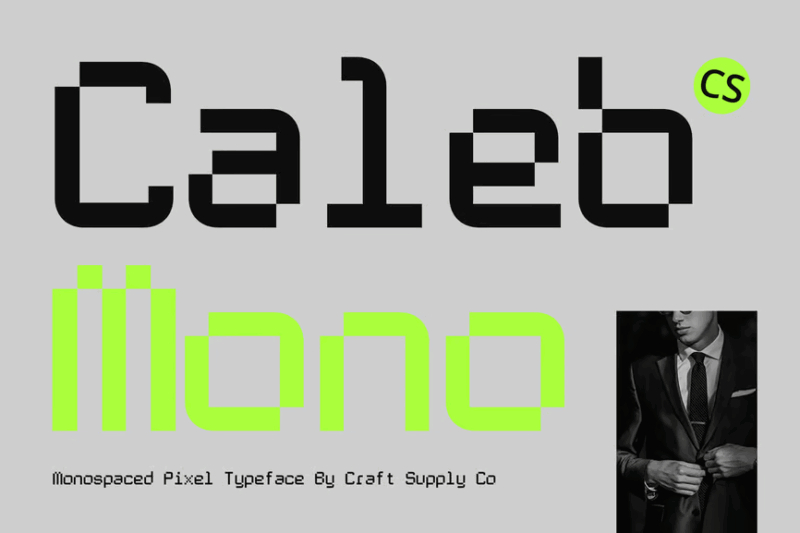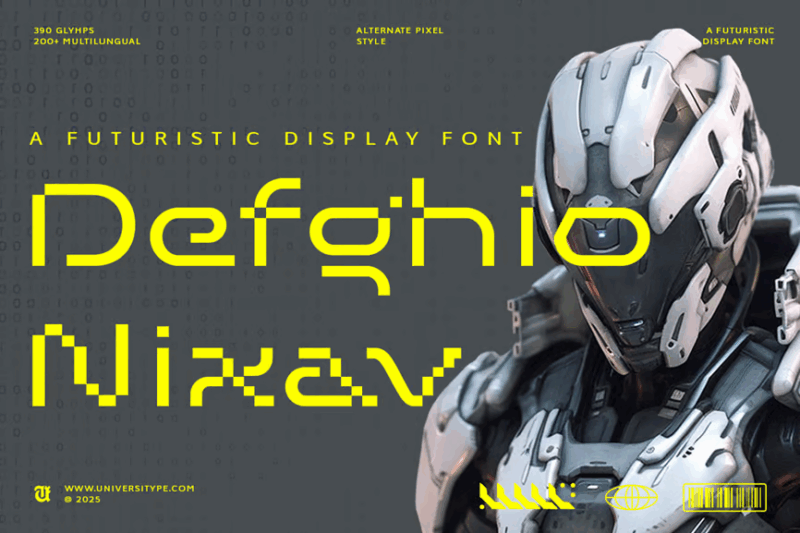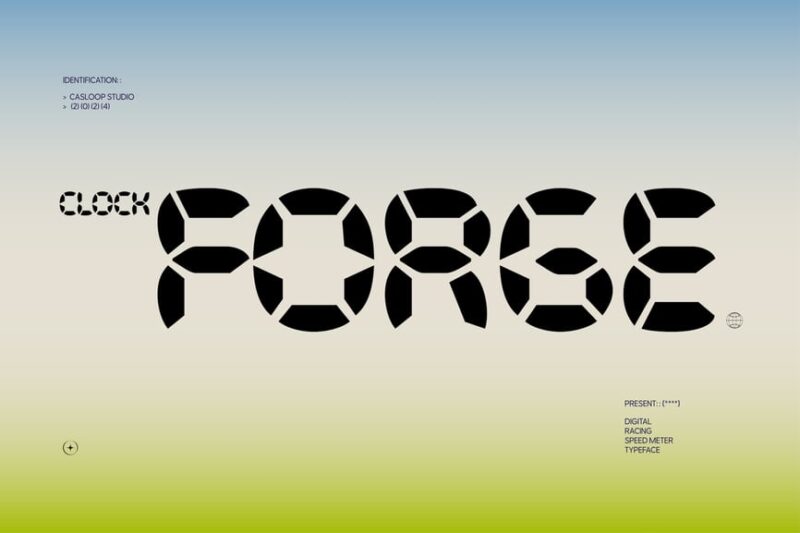
Digital fonts transport us back to the early days of digital technology while paradoxically still feeling cutting-edge in the right context. Their distinctive, technical appearance has made them enduringly popular for tech companies, sci-fi projects, retro-futuristic designs, and any brand wanting to communicate innovation and technological prowess.
Whether you’re designing for a tech startup, creating a nostalgic 80s arcade vibe, or simply want to add some electronic flair to your next project, these digital fonts will have your designs looking tech-ready in no time. Let’s dive in!
21 Best Digital Fonts in 2026
I’ve curated this collection of the absolute best digital fonts available right now. From classic 7-segment displays to more elaborate 16-segment options, these fonts capture that distinctive electronic vibe that designers are loving in 2026.
Clock Forge
Clock Forge is a dynamic digital font inspired by racing speed meters and pixel aesthetics. It combines a Y2K-inspired look with watch-like elements, making it perfect for designs that need a retro-futuristic edge.
Upper Clock
Upper Clock is a monospace pixel font that embodies the Y2K digital aesthetic. Its design is reminiscent of time and temperature displays, making it ideal for projects that require a nostalgic yet futuristic feel.
Digitalize
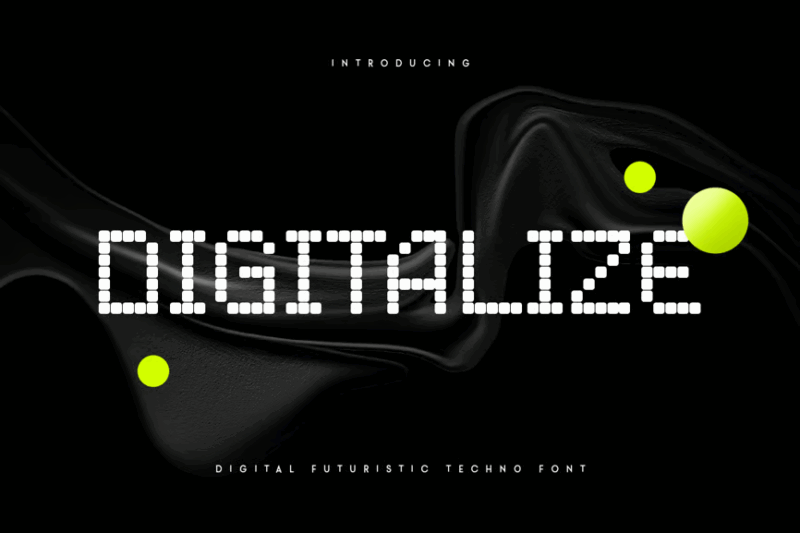
Digitalize is a pixel font that exudes a futuristic and techno vibe. Its modern, pixelated design makes it perfect for tech-related projects or any design that aims to convey a cutting-edge, digital feel.
Bugvirus
Bugvirus is a sans-serif pixel font designed to mimic the look of classic video game and software interfaces. Its digital, retro aesthetic makes it ideal for gaming-related designs or projects aiming for a nostalgic tech feel.
Digital Moneter
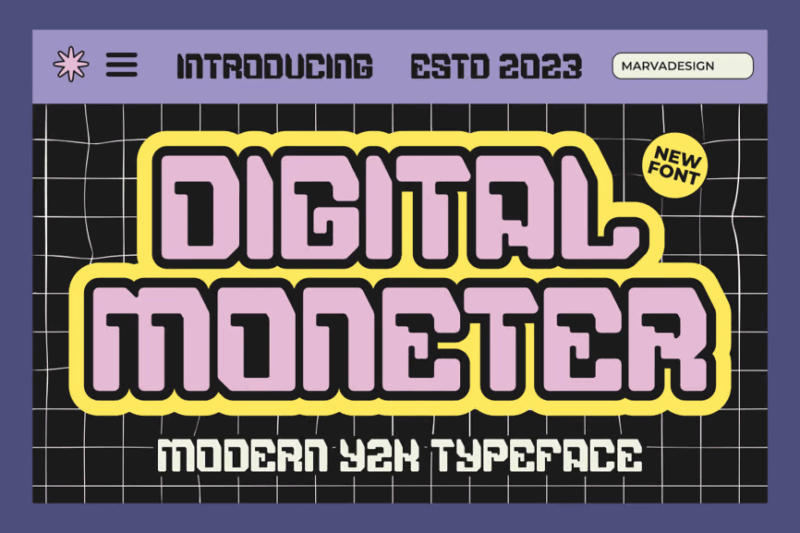
Digital Moneter is a decorative font that captures the essence of Y2K techno aesthetics. Its modern yet retro design makes it perfect for projects that want to evoke a turn-of-the-millennium digital vibe.
Digital Dreamer
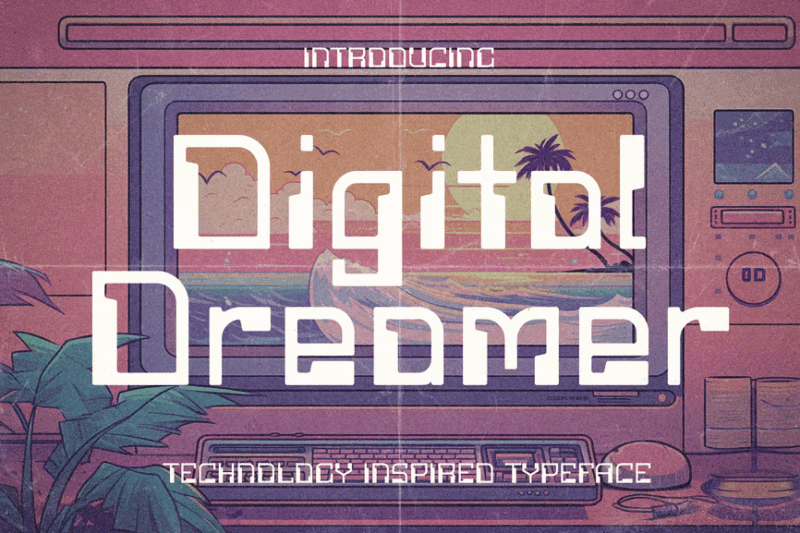
Digital Dreamer is a decorative typeface that pays homage to 1980s computer aesthetics. Its design evokes early internet and digital technology, making it ideal for retro-themed projects or designs aiming for a nostalgic tech feel.
Cyberpunk Style Font
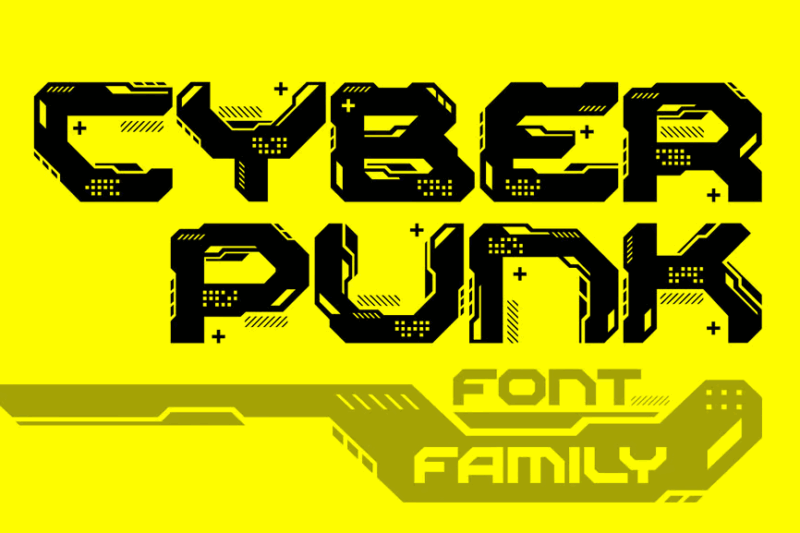
This decorative font embodies the essence of cyberpunk aesthetics with its futuristic and technological design. It’s perfect for projects related to sci-fi, tech, or any design that aims to convey a edgy, future-forward feel.
Cyber Bresero
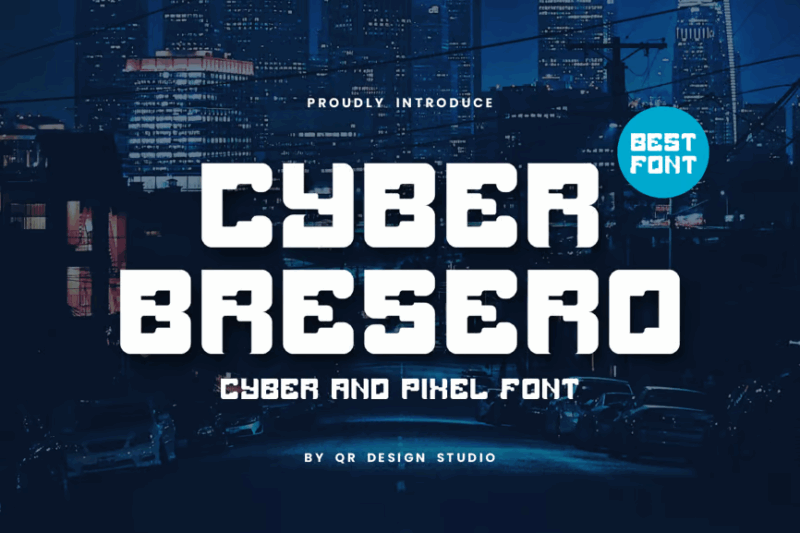
Cyber Bresero is a decorative digital font with a sporty, tech-inspired design. Its condensed style makes it ideal for headlines or logos in projects related to technology, sports, or futuristic themes.
Digibra
Digibra is a decorative font that combines digital aesthetics with retro display elements. Its pixel art-inspired design makes it perfect for projects aiming for a nostalgic digital look or retro-futuristic themes.
Techbit
Techbit is a sans-serif font featuring a soft pixel design, perfect for modern logos. Its blend of pixel aesthetics with smooth edges makes it ideal for tech-related branding or any project requiring a contemporary digital look.
Degita
Degita is a decorative pixel font that captures the essence of retro gaming aesthetics. Its blocky, pixelated design makes it perfect for game-related projects or any design aiming to evoke a nostalgic digital feel.
Pixemaze
Pixemaze is a unique decorative font that combines serif elements with pixelated aesthetics. Its retro-inspired design makes it ideal for projects that want to blend classic typography with digital art styles.
Glitchen
Glitchen is a sans-serif display font featuring a modern, pixelated design. Its futuristic look makes it perfect for tech-related projects, digital art, or any design that aims to convey a cutting-edge, computerized feel. It also looks a little like the original Minecraft font, doesn’t it?
Vorcas Glitch Font
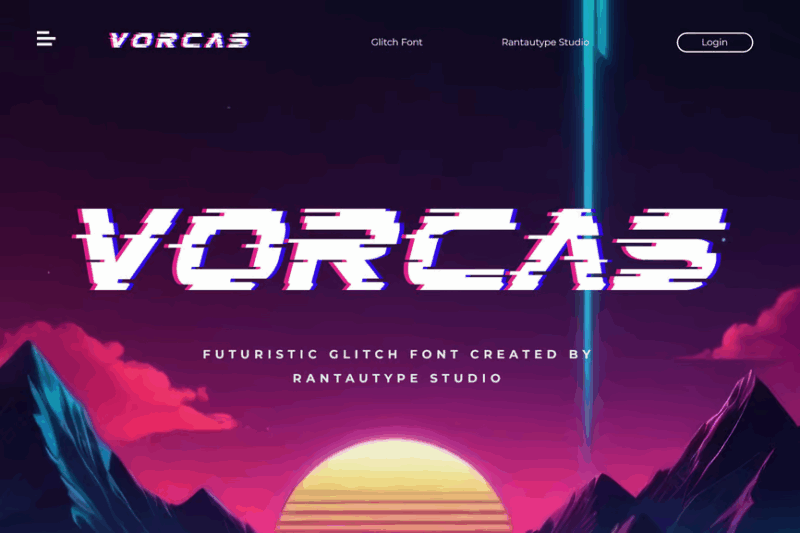
Vorcas is a decorative font that incorporates glitch aesthetics into its design. Its distorted, edgy look makes it ideal for magazine layouts, album covers, or any project aiming for a contemporary, digitally-disrupted feel.
Cybernex
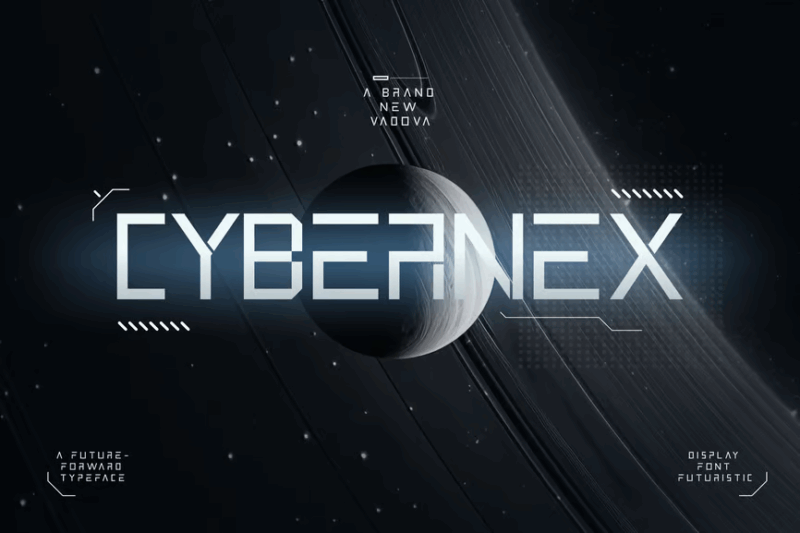
Cybernex is a sans-serif font with a strong futuristic and digital aesthetic. Its sleek, tech-inspired design makes it perfect for sci-fi related projects, tech branding, or any design that needs to convey a sense of future-forward thinking.
So next time you’re looking to add some technological flair to your designs, consider reaching for one of these digital fonts. Their distinctive appearance might be just what you need to make your project truly “light up!”